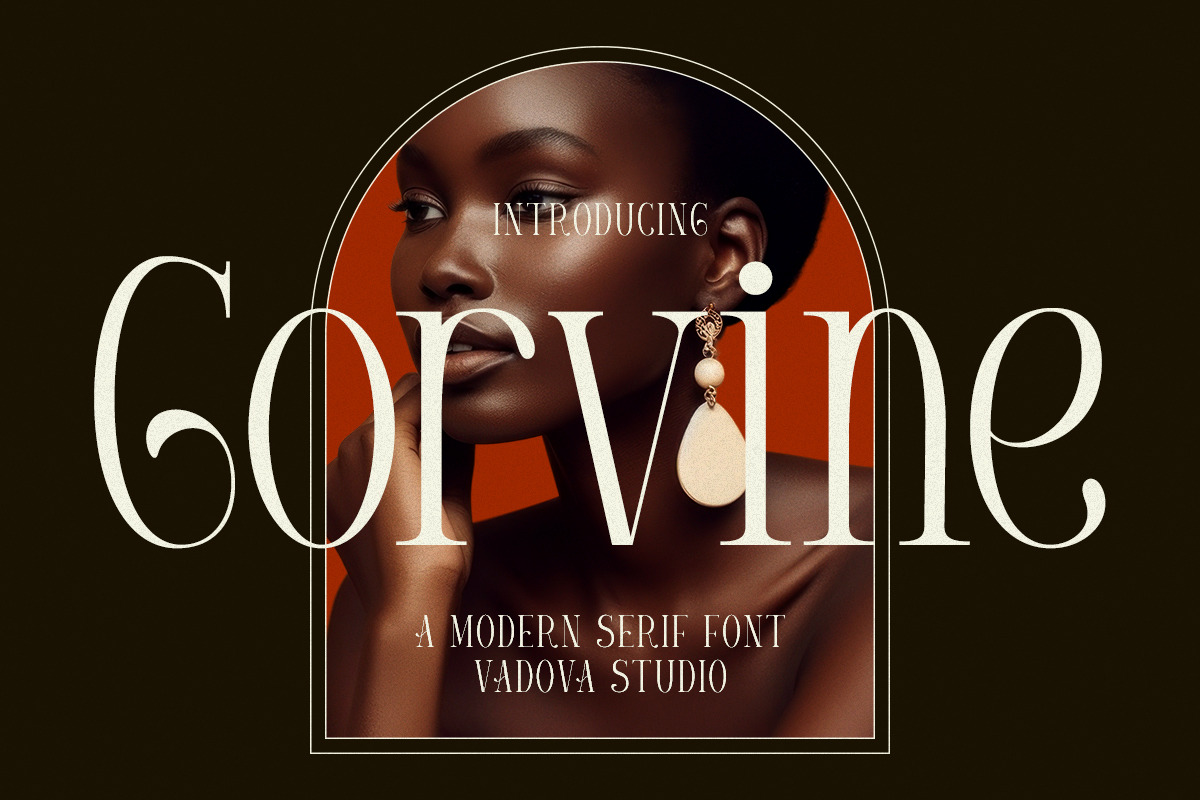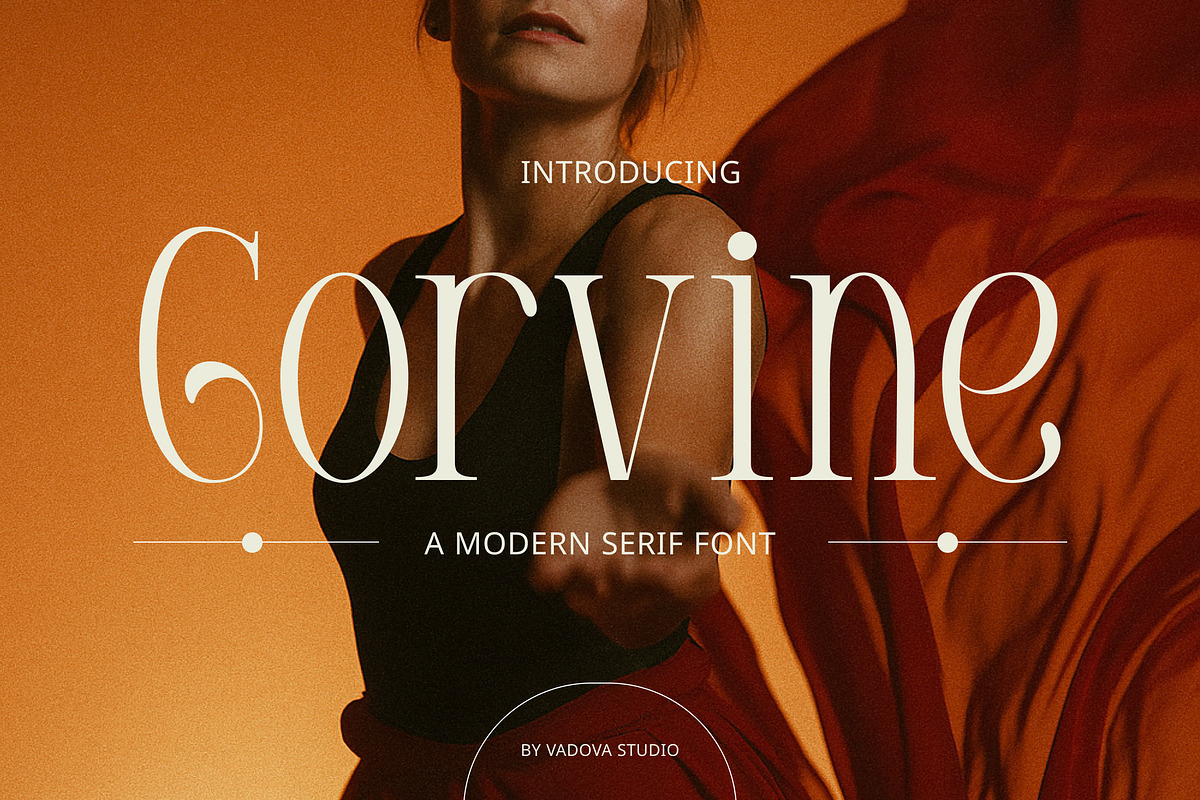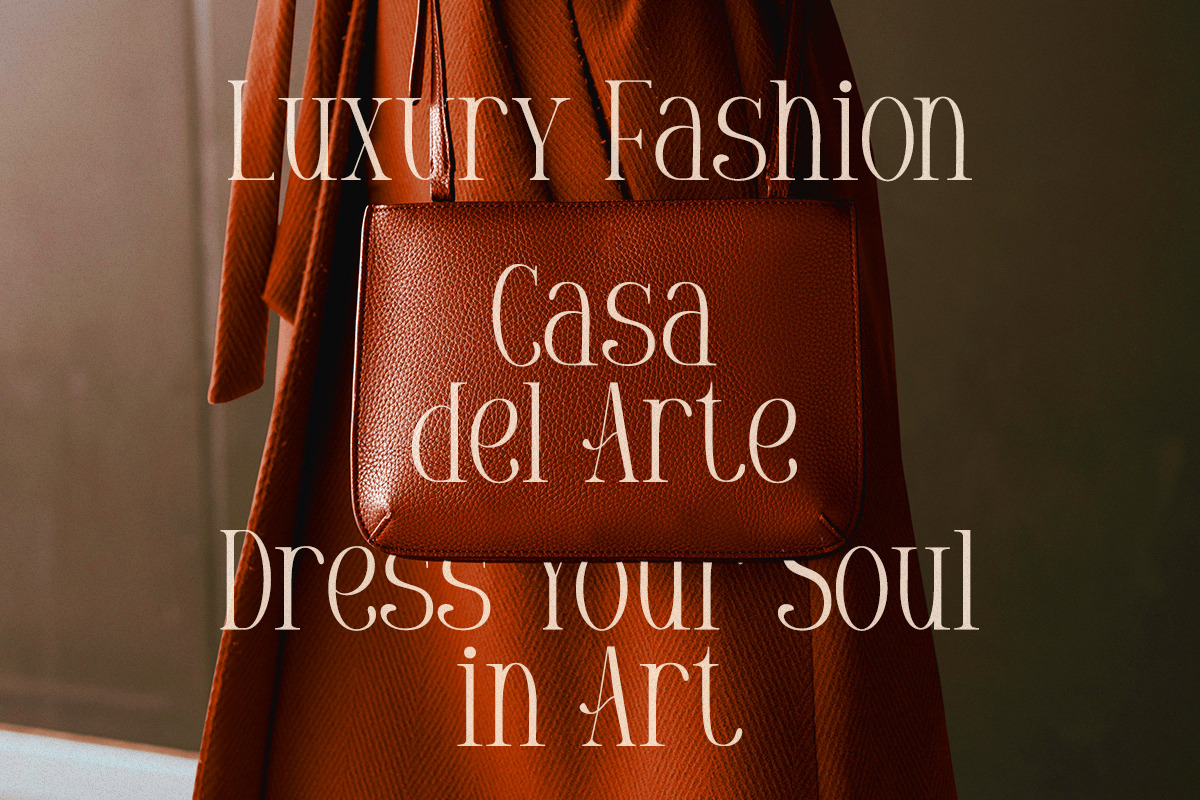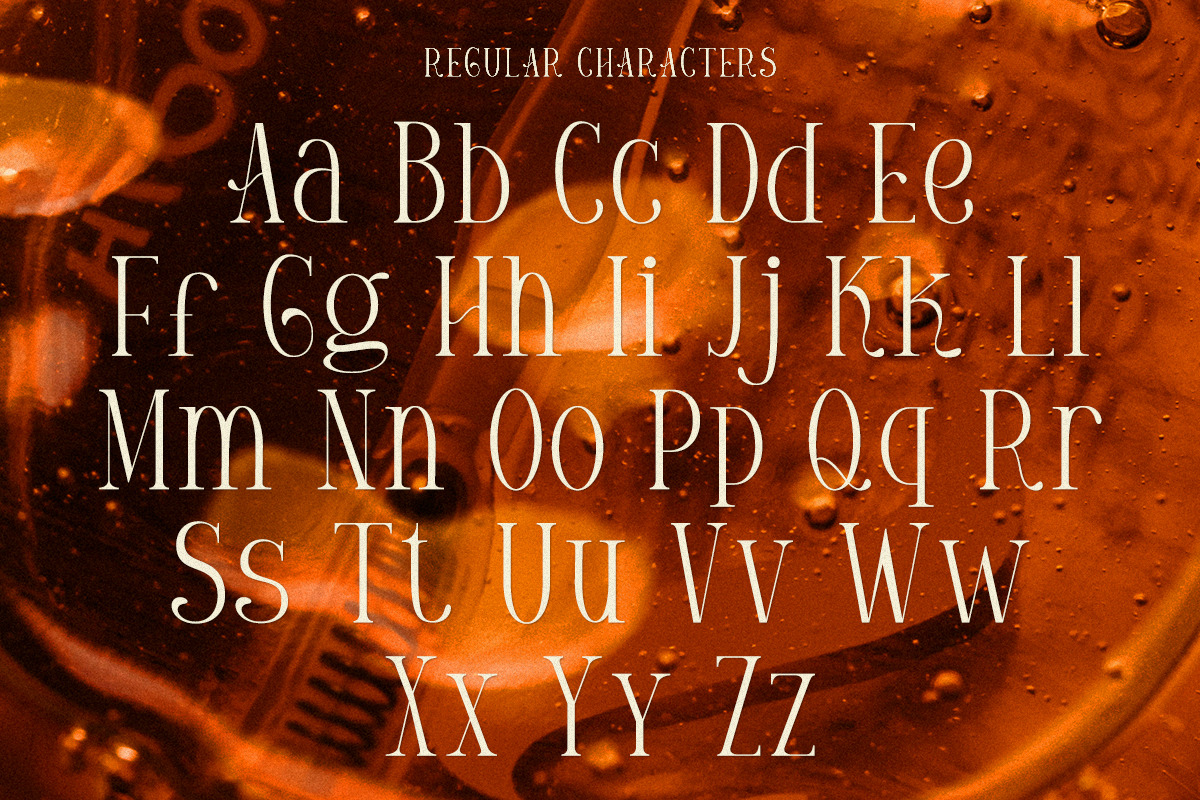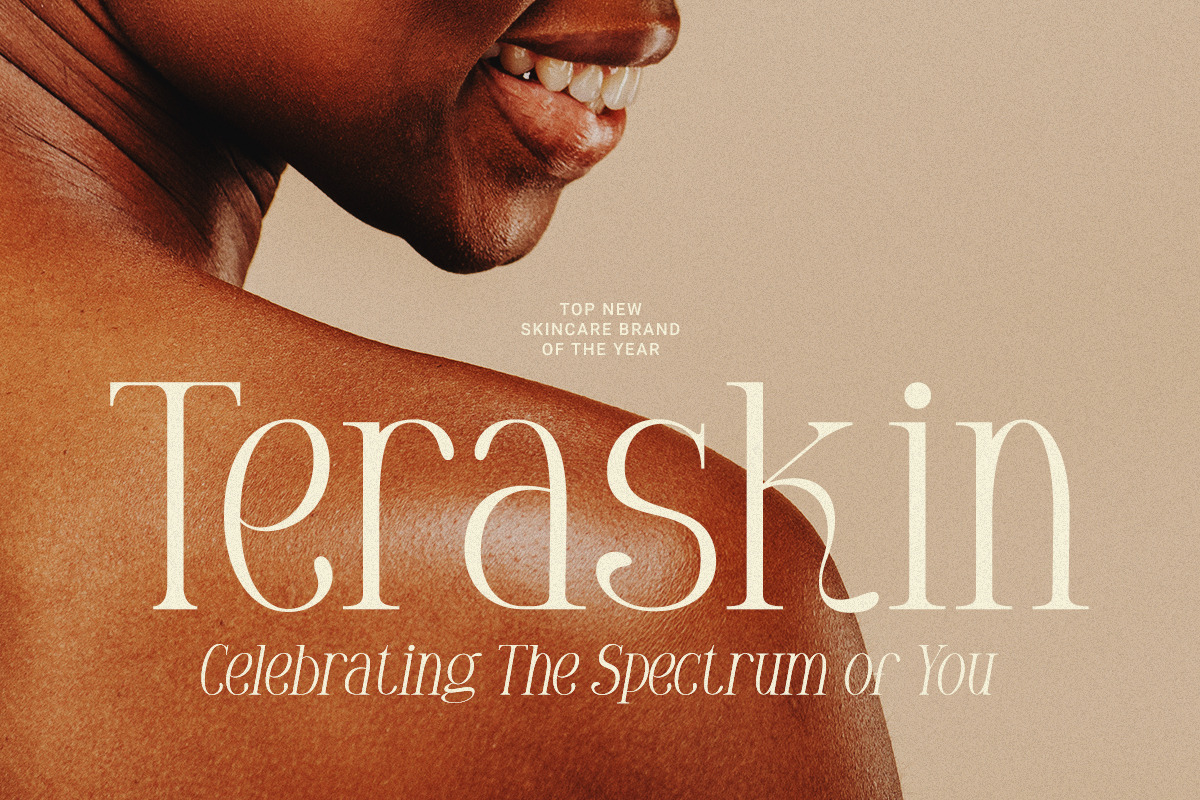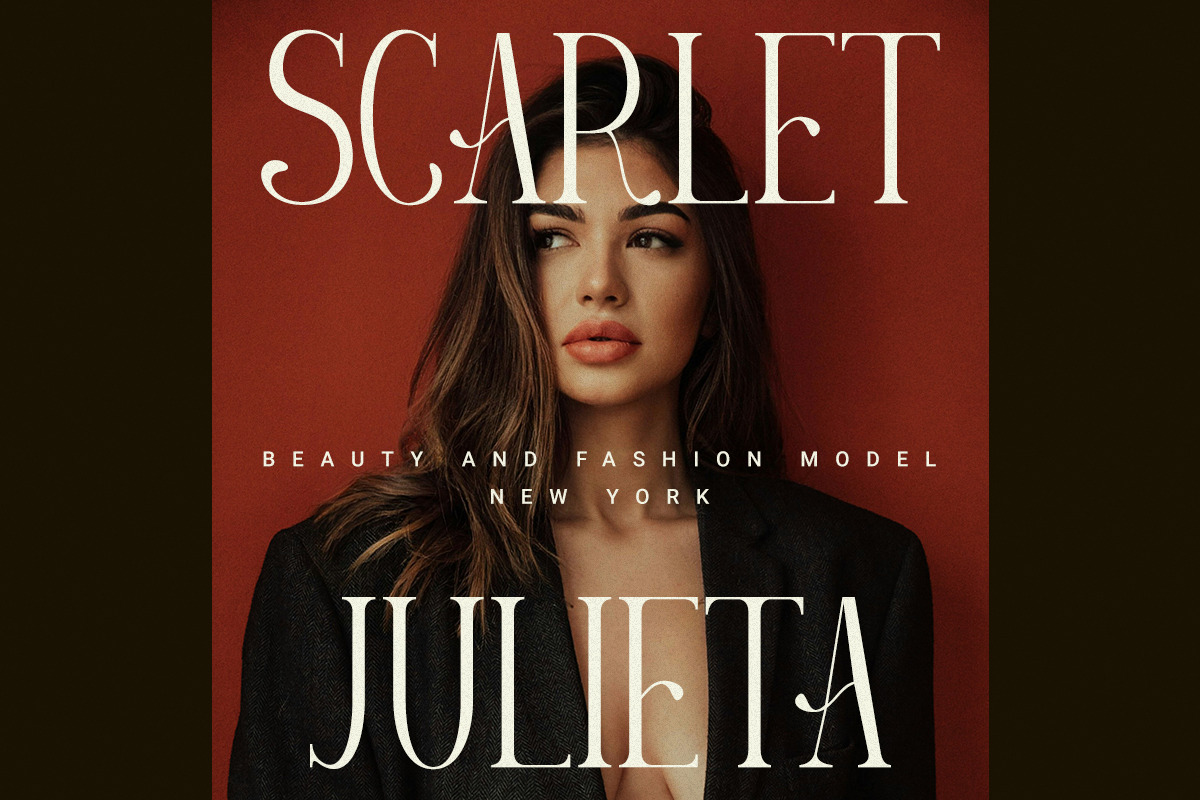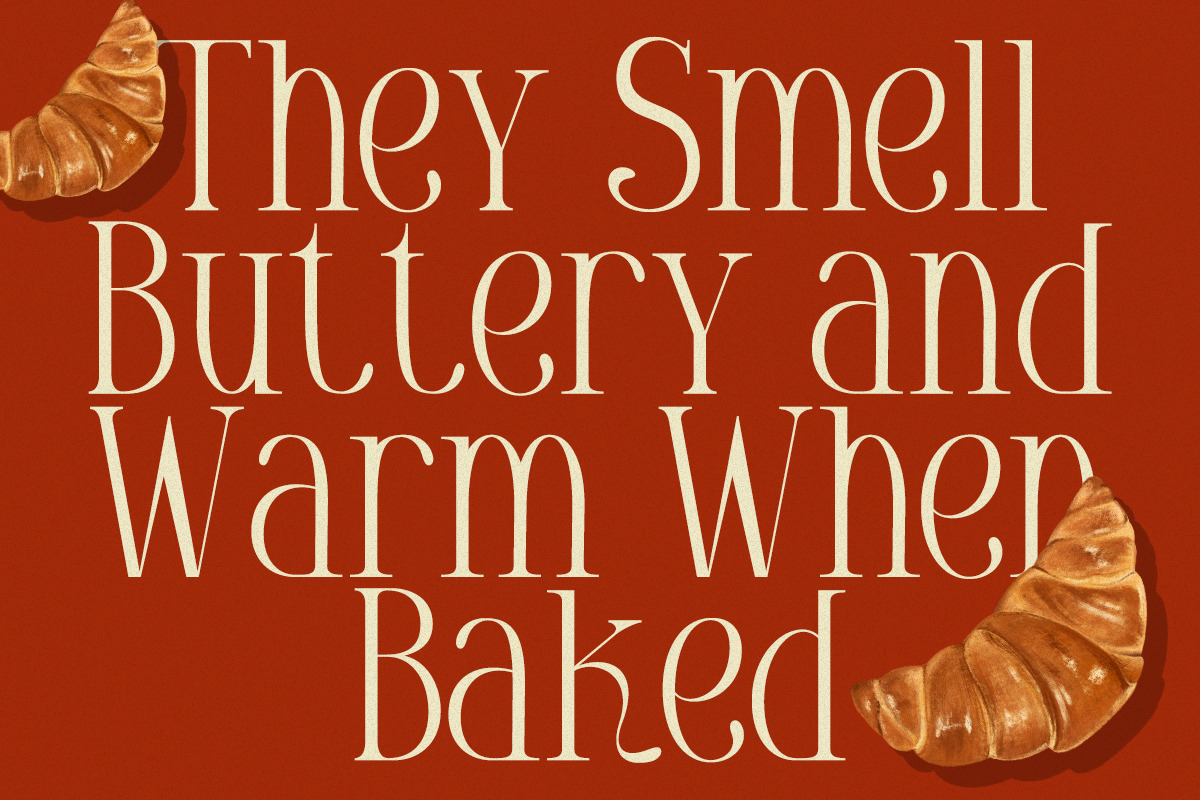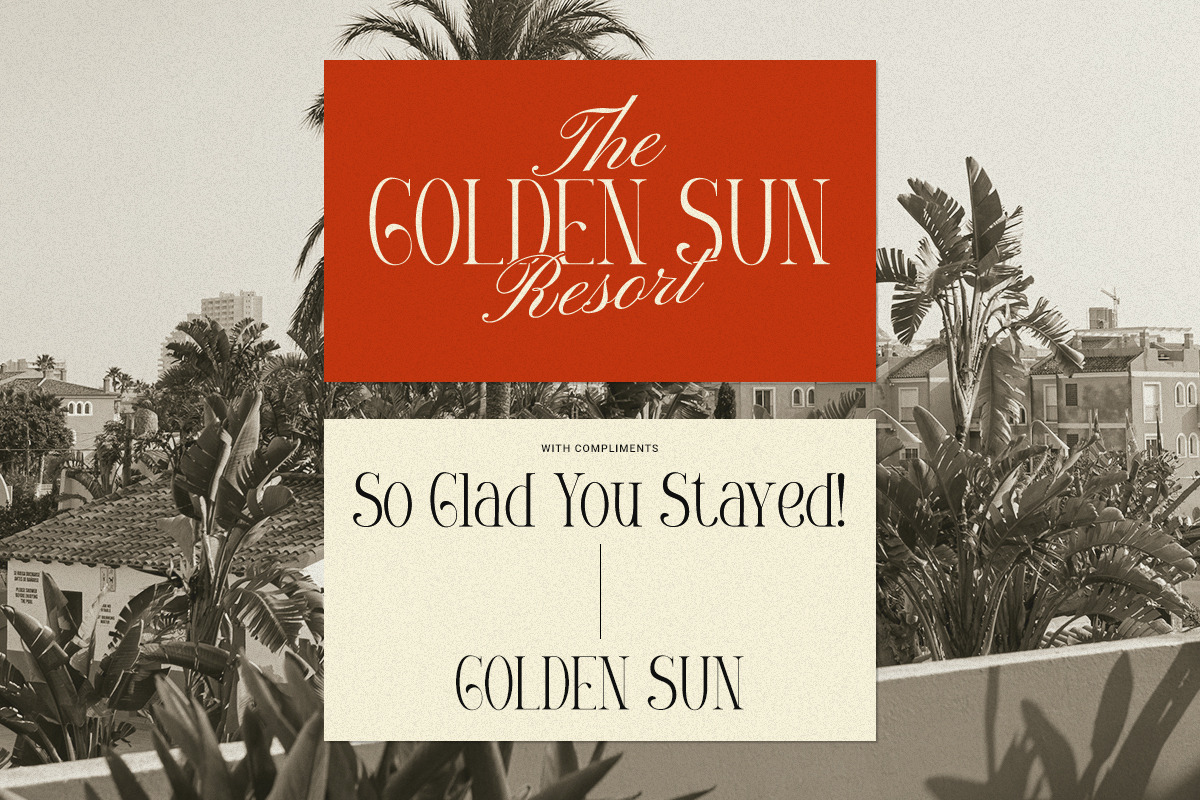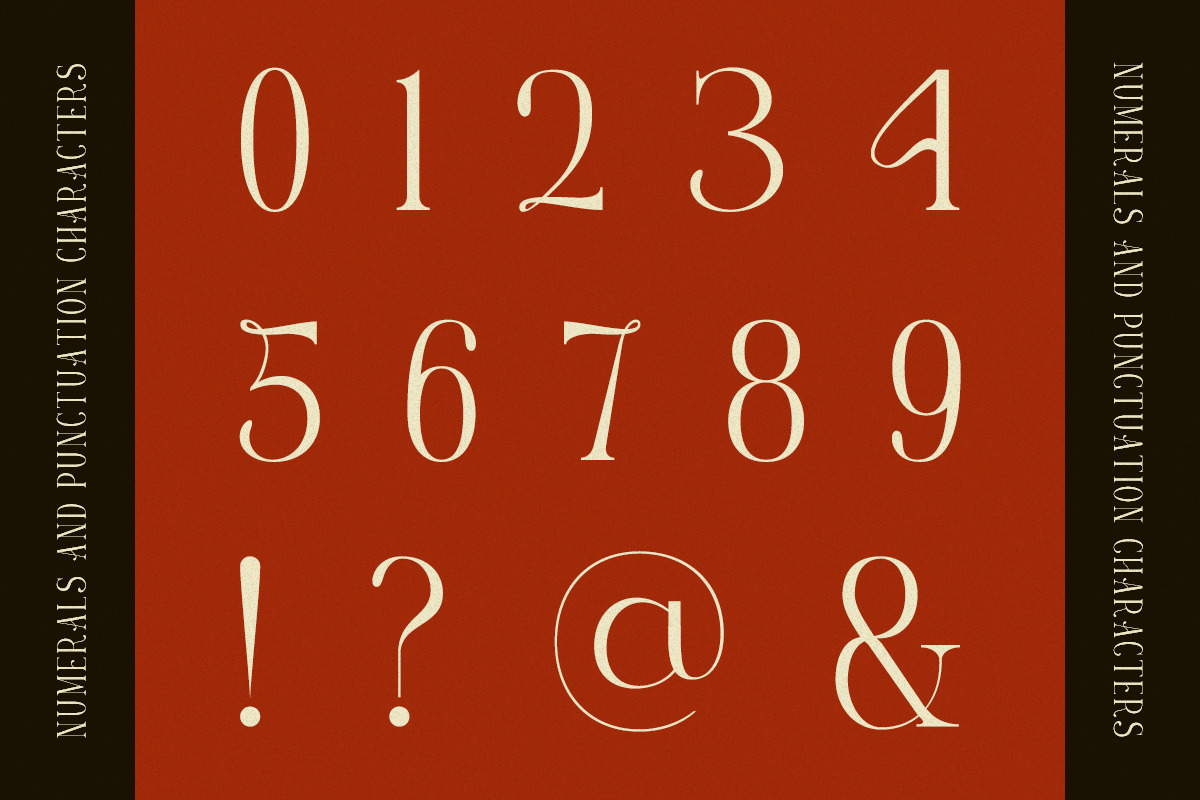
Gorvine – Modern Luxury Serif Font
Gorvine is a modern serif typeface that brings luxury, elegance, and sophistication into your designs. With its high-contrast strokes, graceful curves, and refined letterforms, Gorvine is the perfect choice for editorial layouts, fashion branding, beauty identity, and upscale packaging.
This font combines timeless serif traditions with a contemporary edge, creating a striking balance between classic romance and modern style.
Why Choose Gorvine:
High-fashion style with elegant proportions
Modern luxury serif that feels chic and timeless
Perfect contrast for bold headlines and refined logos
Versatile for both digital and print applications
Fashion branding & lifestyle identity
Editorial design & magazine covers
Wedding invitations & stationery
Luxury packaging & product labels
Logo design & signature marks
Social media content & digital promotions
Modern elegant serif design
High-contrast details & graceful shapes
Strong readability for upscale layouts
Perfect for luxury, fashion, and editorial projects
A typeface that blends romance, modernity, and style
Add a touch of luxury and sophistication to your creative work with Corvine, a serif font that defines modern elegance.